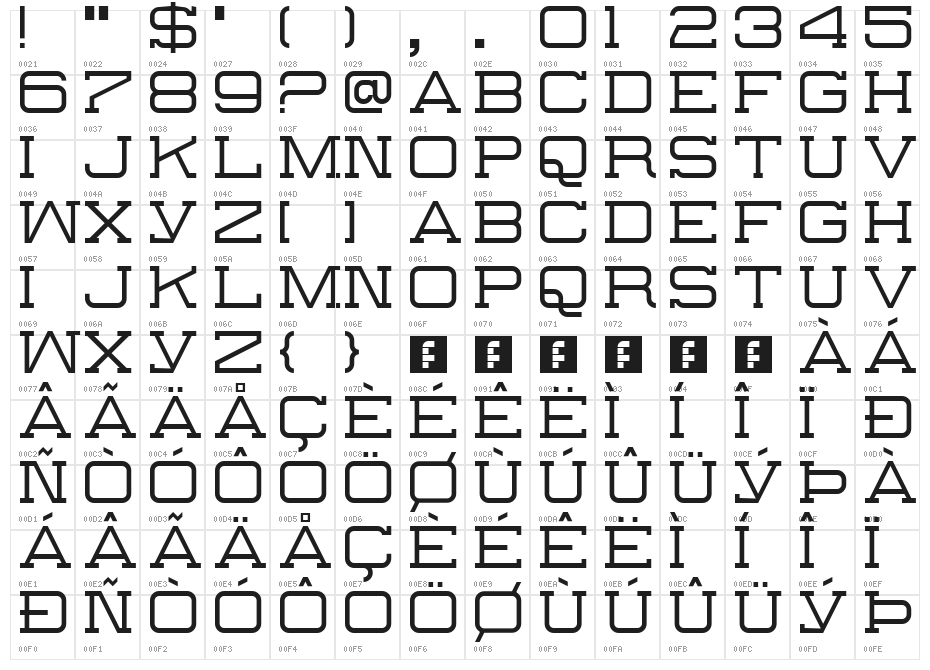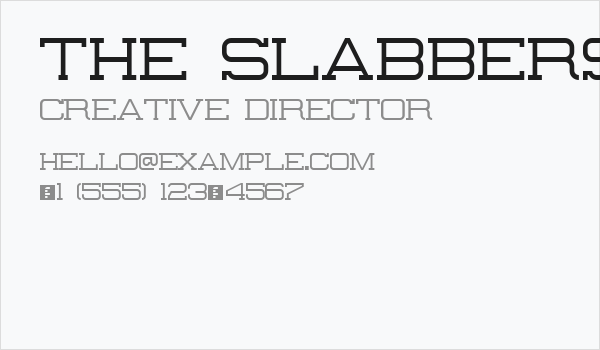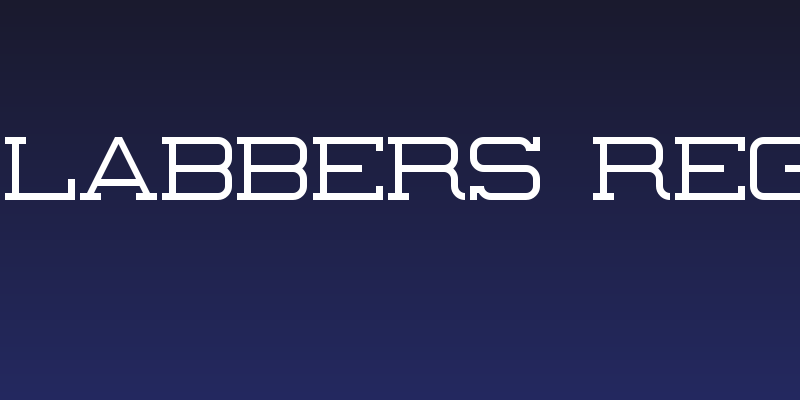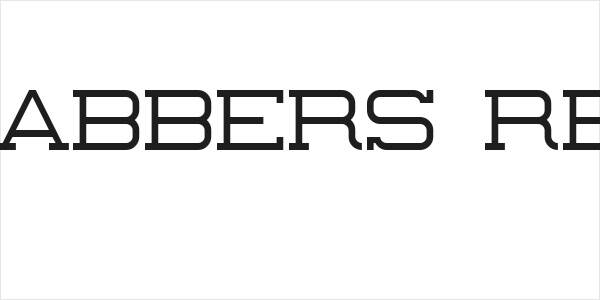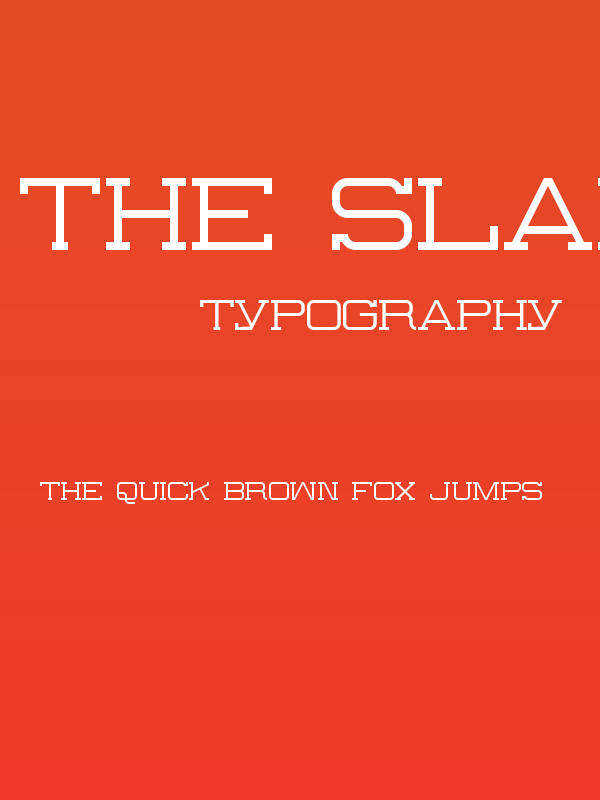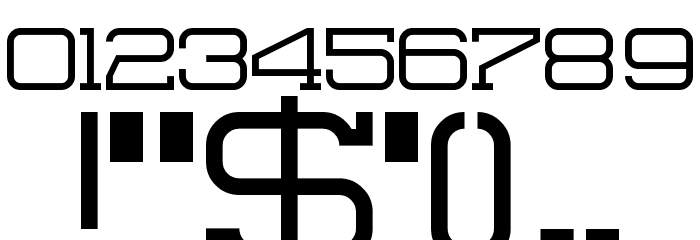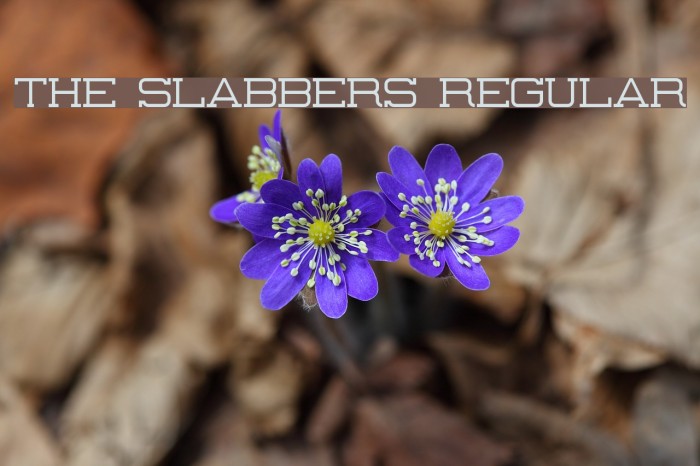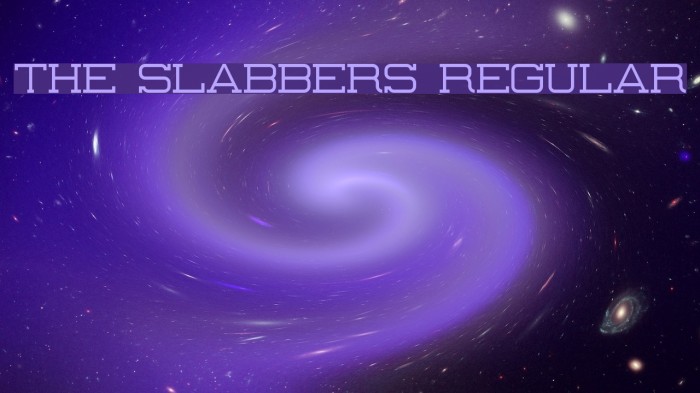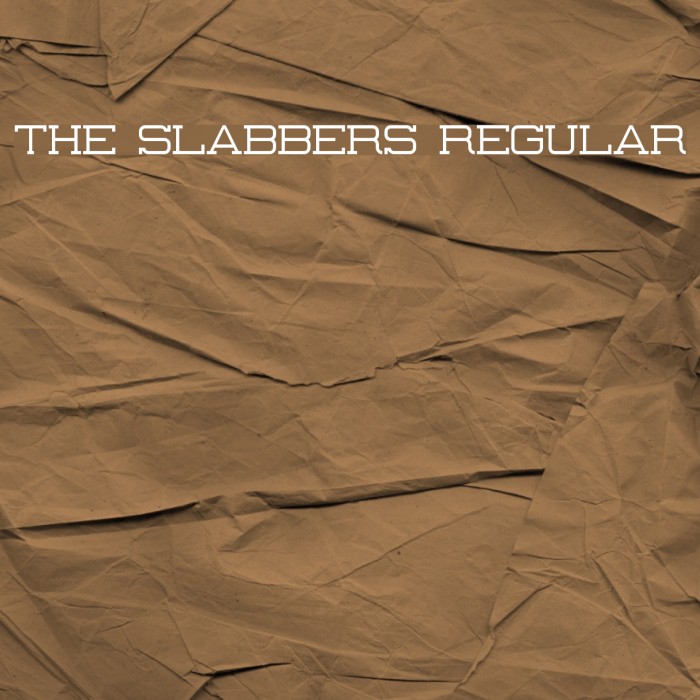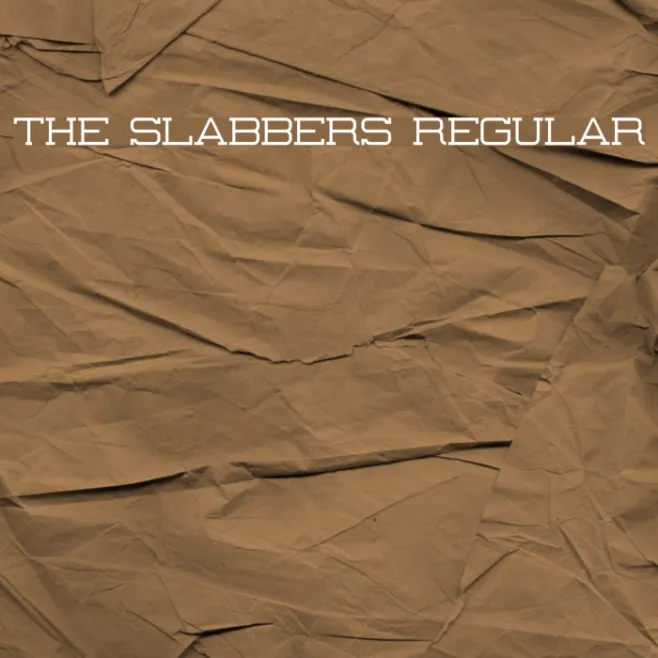
The Slabbers Regular Font
The Slabbers Regular Description
This font features a robust and structured design, characterized by its slab serif style. The letters exhibit strong, rectangular serifs that provide a sense of stability and boldness. The overall appearance is clean and geometric, with consistent stroke widths that contribute to its modern and industrial feel. The uppercase and lowercase letters maintain a uniform height, enhancing readability and creating a cohesive look. The numerals and special characters are designed with the same attention to detail, ensuring they blend seamlessly with the alphabetic characters. This font is ideal for projects that require a strong visual impact while maintaining clarity and legibility.
| Proposed Projects | Ideal for branding, headlines, posters, and signage where a bold and structured appearance is desired. |